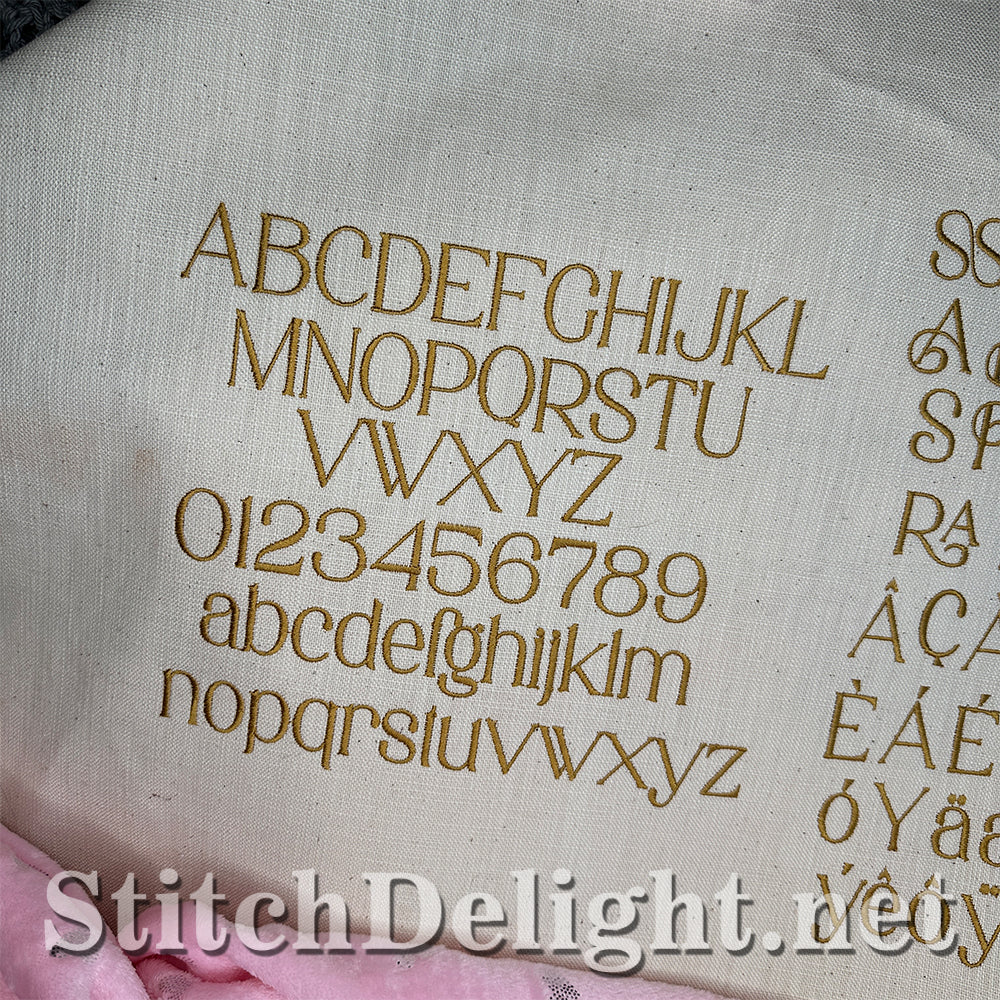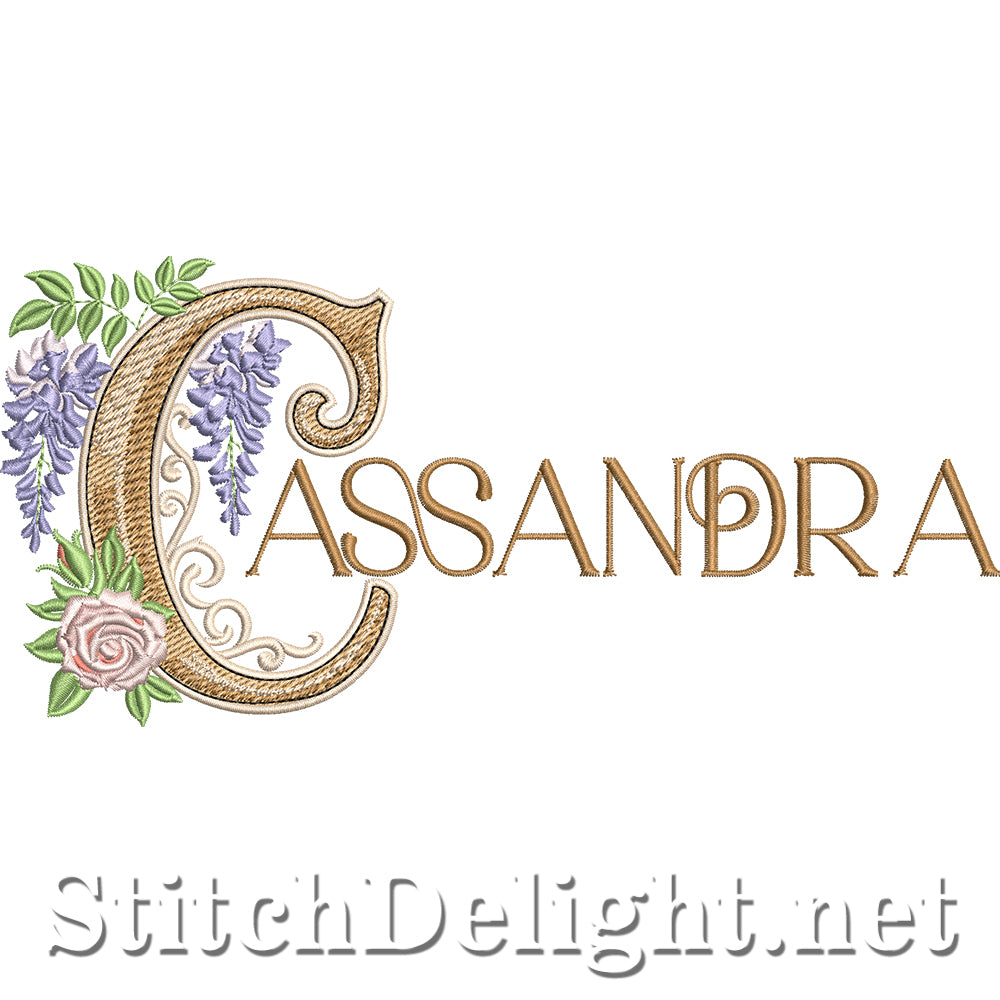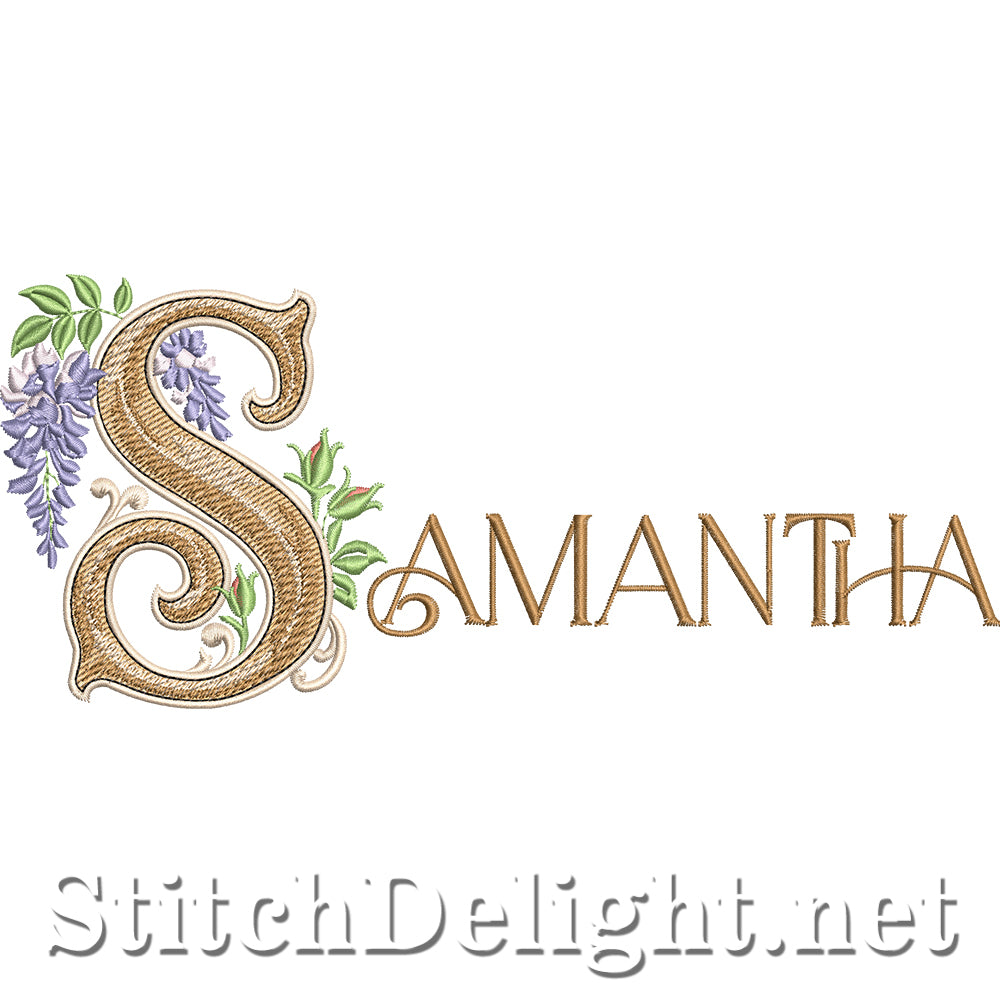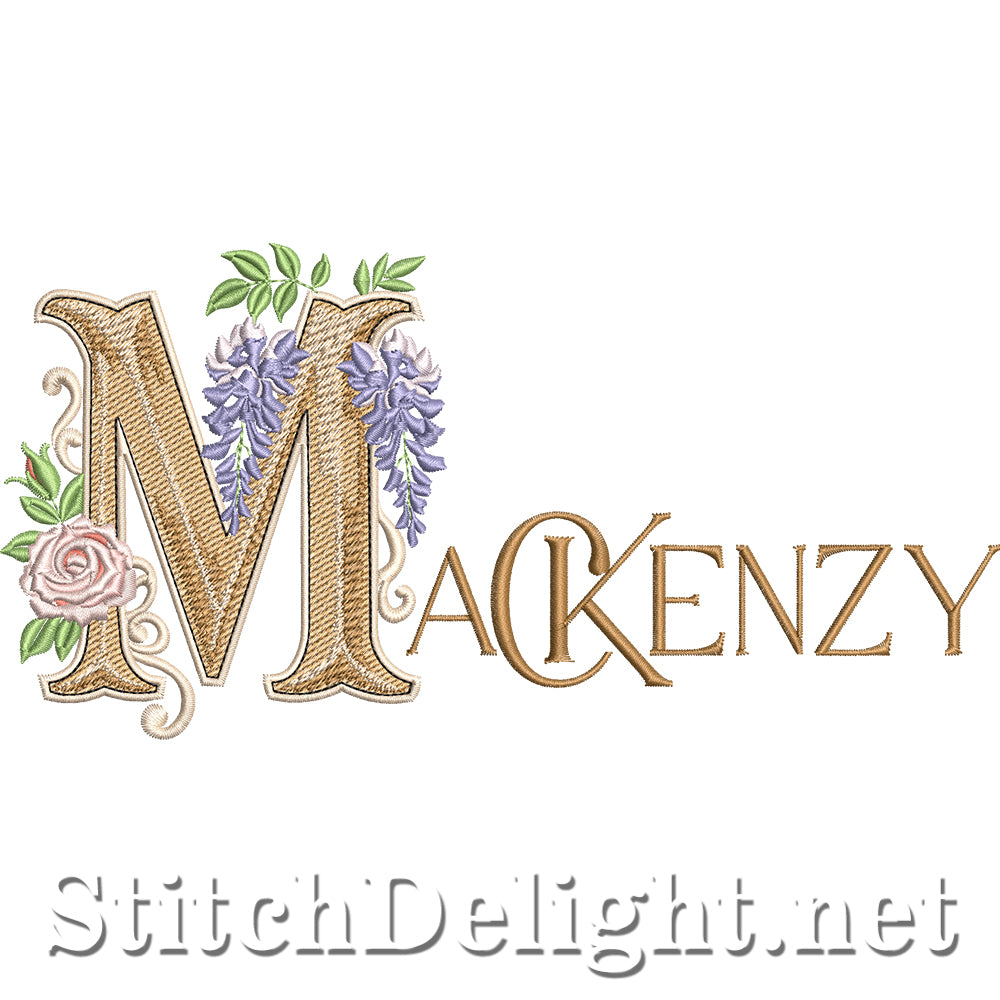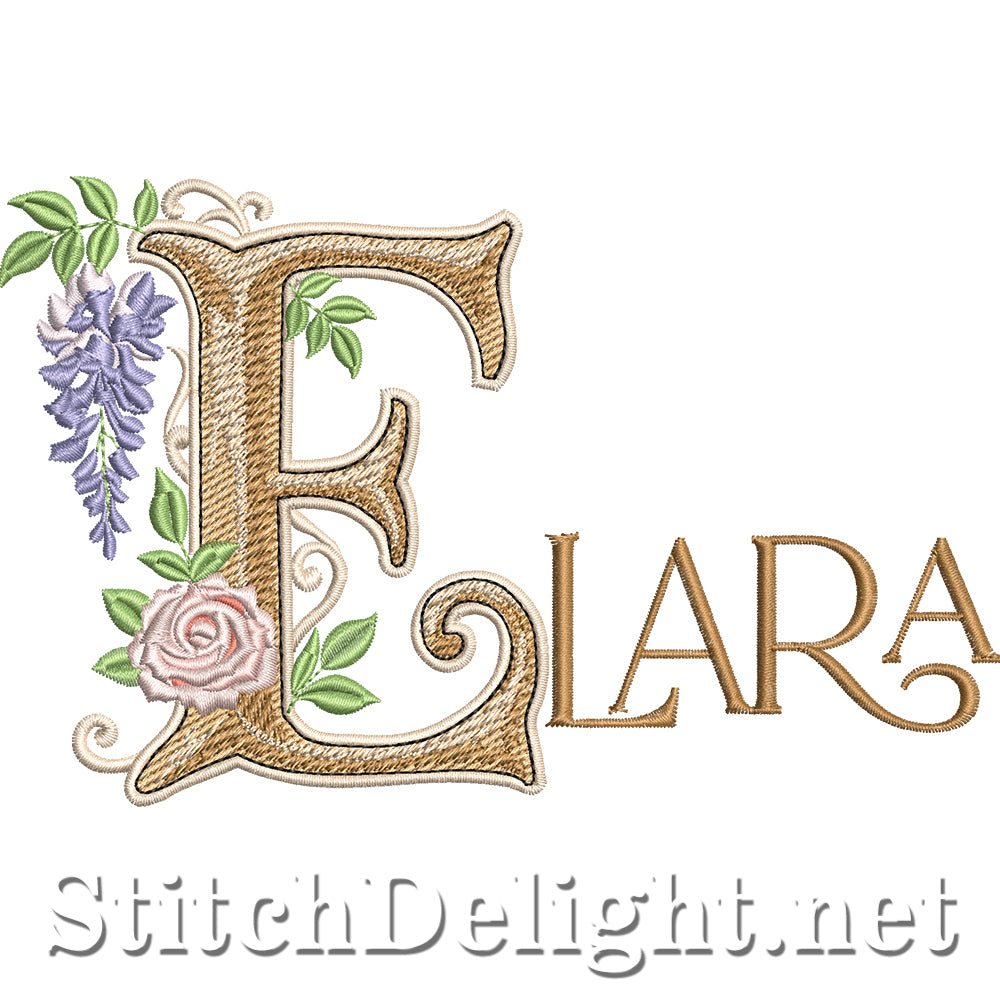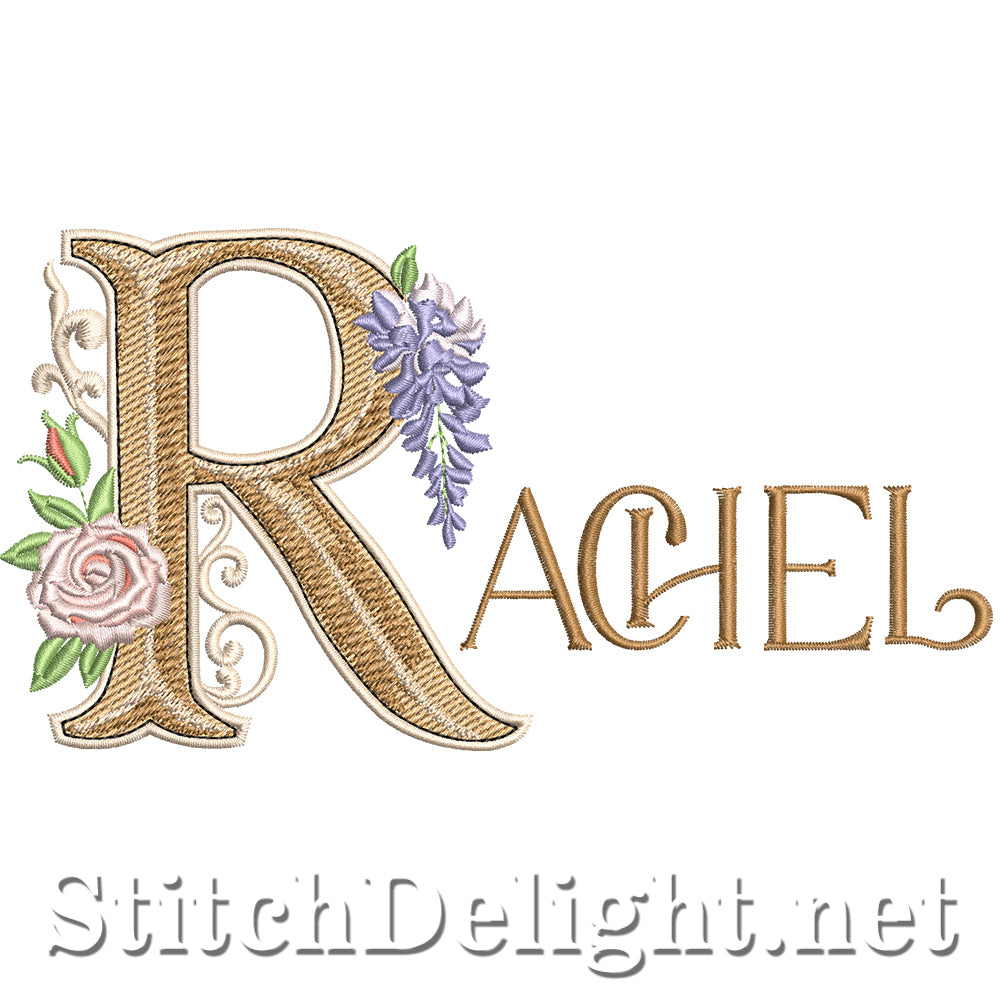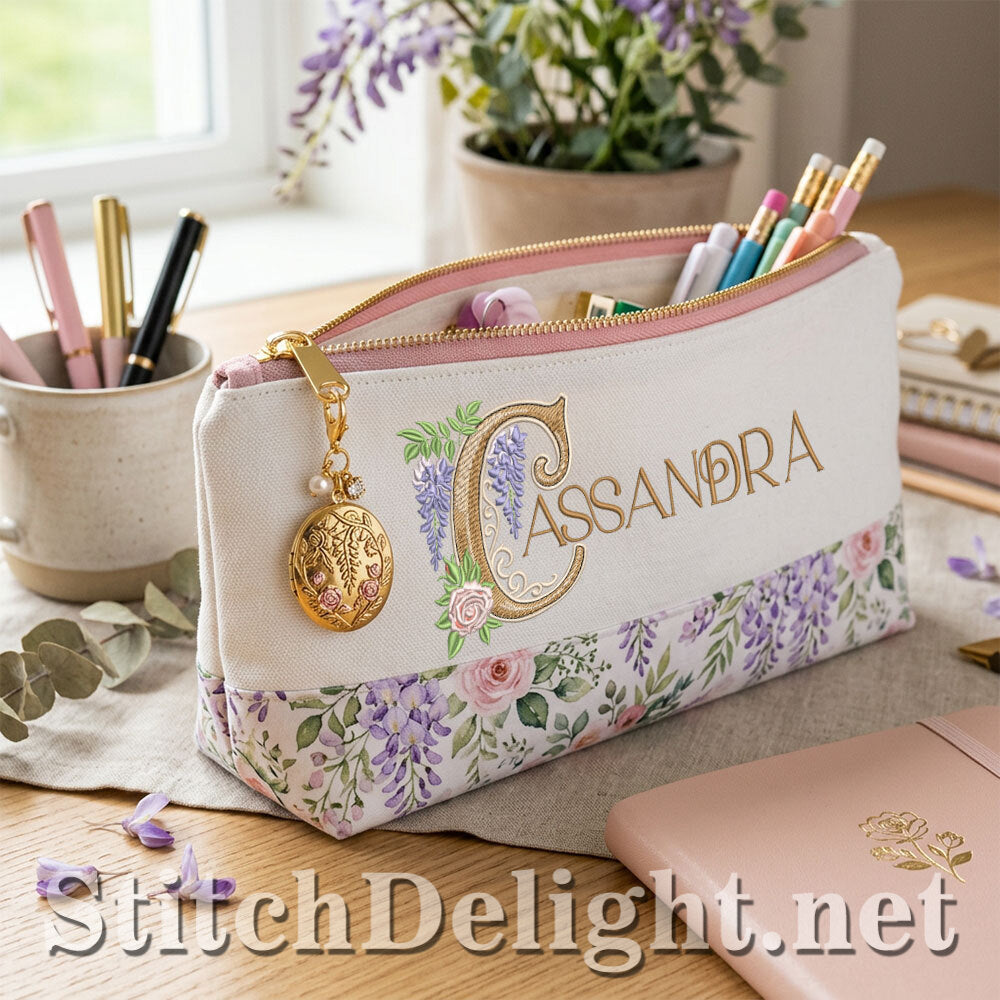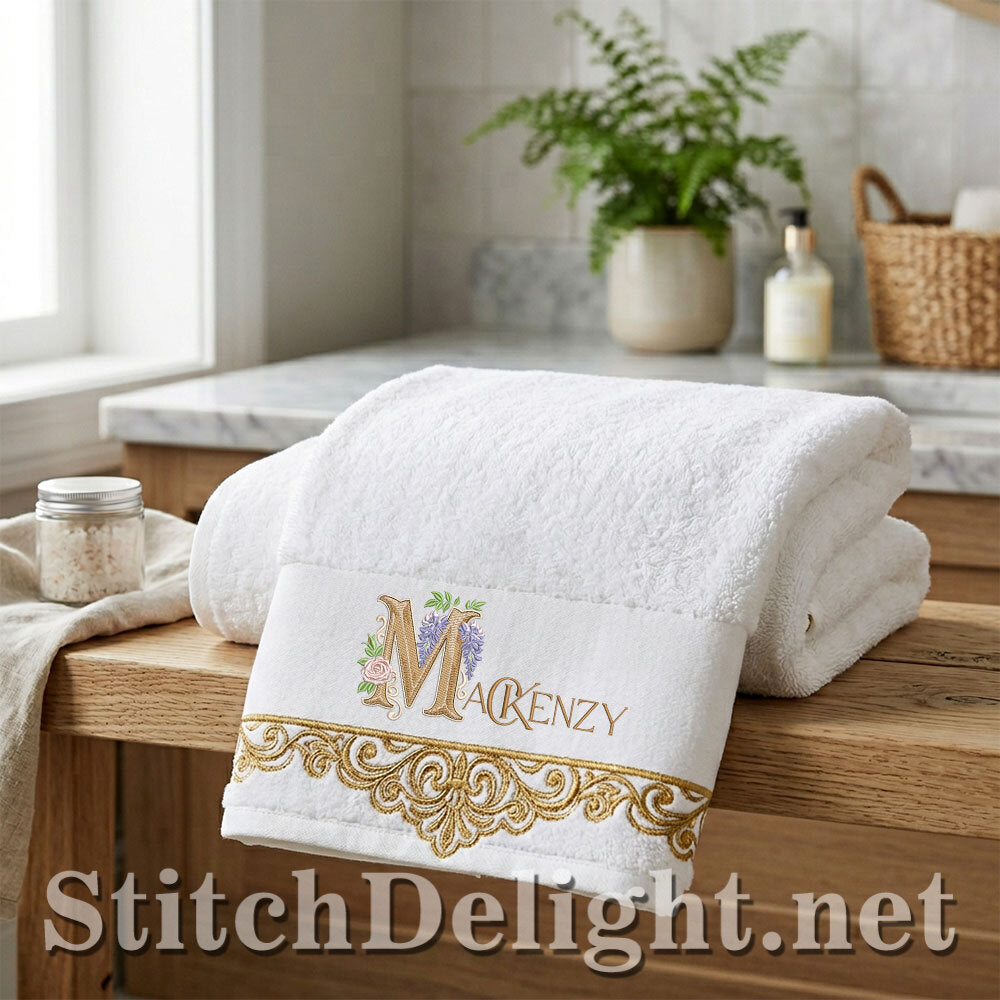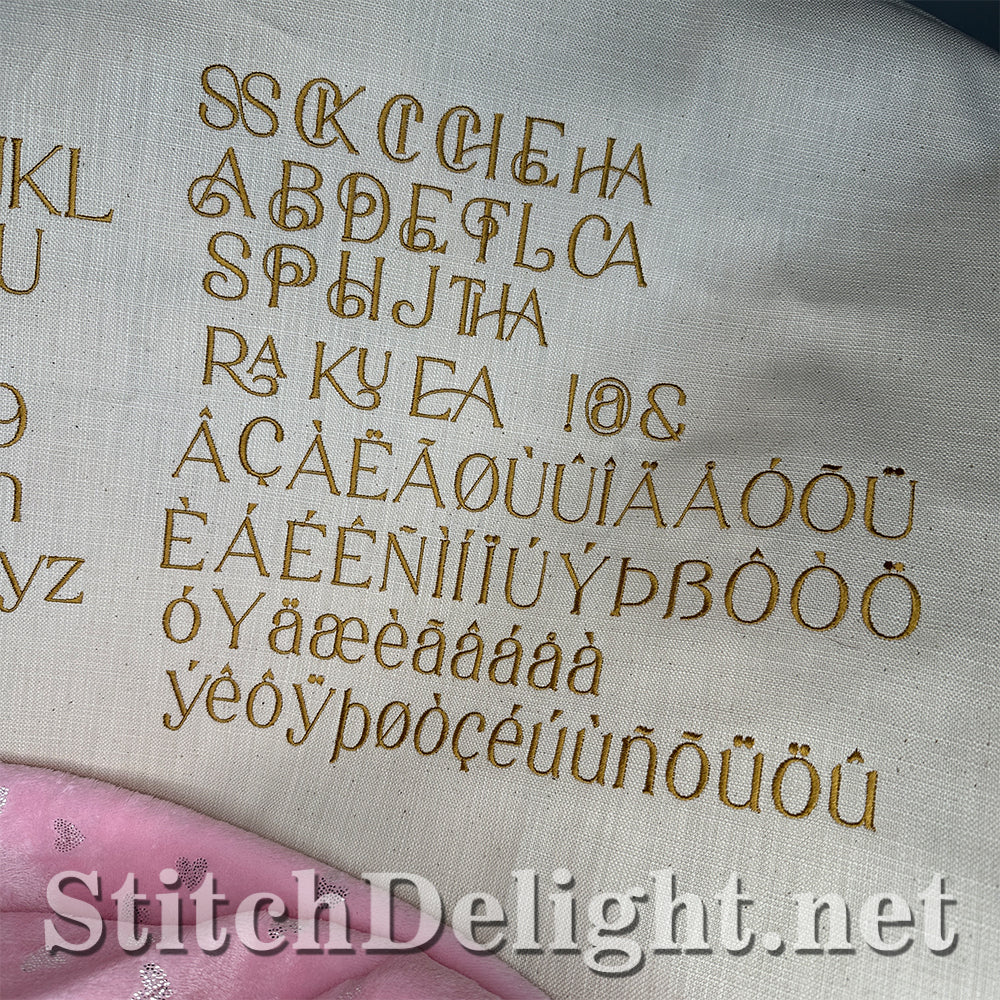
🌿 Elegant Classic Font – The Perfect Companion to Bridgerton
Introducing our Elegant Classic Font — a refined and versatile embroidery font designed to stand beautifully on its own or pair seamlessly with our romantic Bridgerton Font.
Clean, timeless, and effortlessly stylish… this font brings balance to more decorative designs, making it the perfect companion for creating personalized pieces with depth and sophistication.
✨ Designed for Versatility
With a letter height of 25.5mm (approx. 1.0 inch), this font is ideal for:
- Names under monograms
- Personalization on towels & linens
- Baby items & clothing
- Gift bags & accessories
- Quilt labels
- Boutique-style products
Its clean structure ensures excellent readability, while still maintaining a soft, elegant aesthetic.
🌍 Extended Character Set – Designed for Global Use
This font includes a wide range of special characters and letter variations, making it perfect for international customers and multilingual projects.
✔ Western European languages (English, Afrikaans, German, French, Dutch)
✔ Nordic languages (Swedish, Danish, Norwegian)
✔ Central European languages (Polish, Czech, Hungarian)
✔ Accented characters & diacritics for broader compatibility
You’ll have the flexibility to create names and words accurately — no compromises.
💖 Designed to Pair Beautifully
While this font is elegant on its own, it truly shines when combined with our decorative Bridgerton-style lettering.
Use it to:
- Add names beneath ornate initials
- Create layered embroidery designs
- Balance detailed monograms with clean text
- Design coordinated, high-end gift items
Together, these two fonts open up endless creative possibilities — from luxury monograms to full personalized compositions.
🌸 Simple, Stylish, Essential
This is the font you’ll reach for again and again when you need:
✔ Clean elegance
✔ Perfect readability
✔ Multilingual support
✔ Seamless pairing with decorative fonts
💫 A must-have foundation font for every embroidery collection.